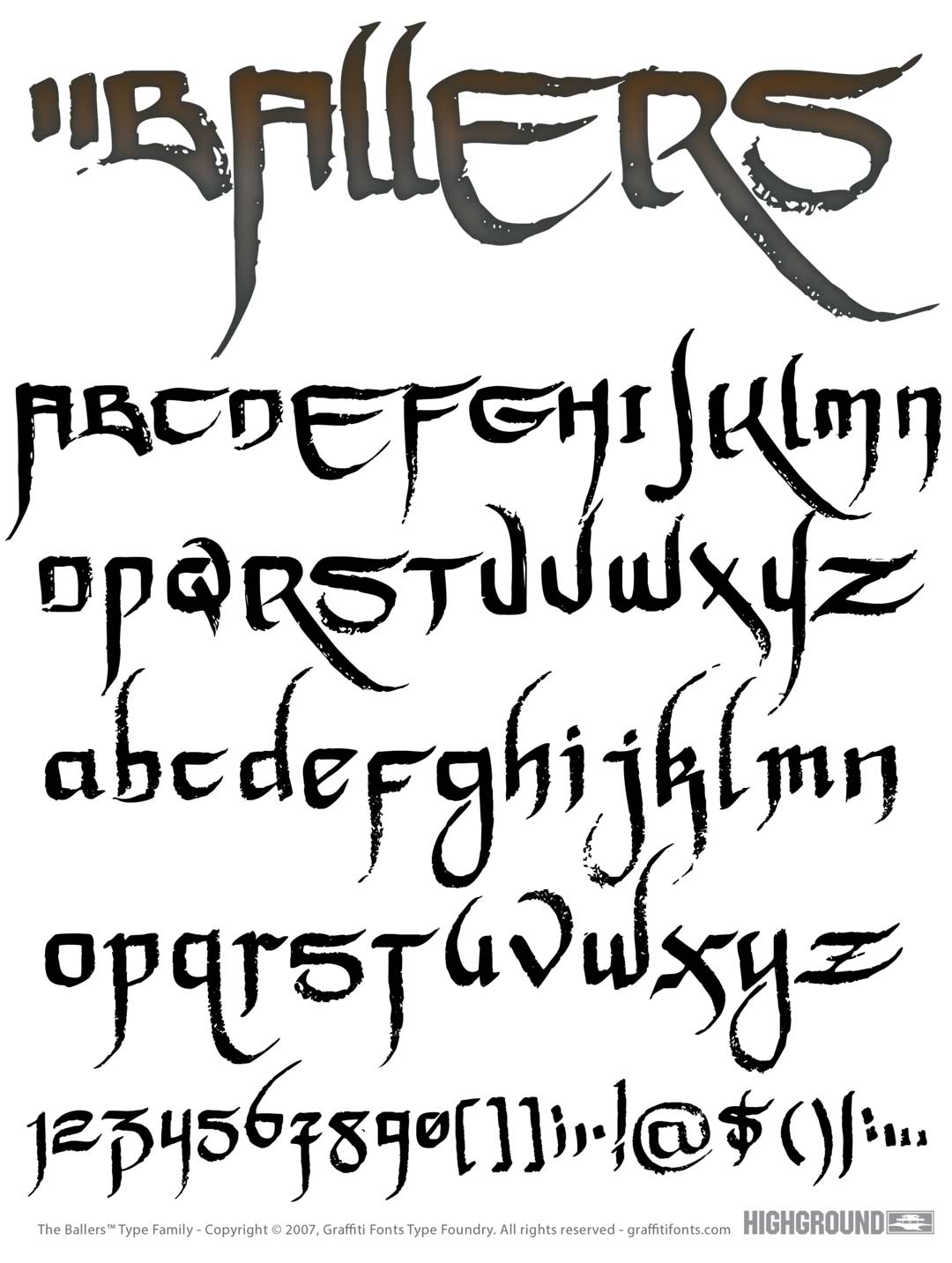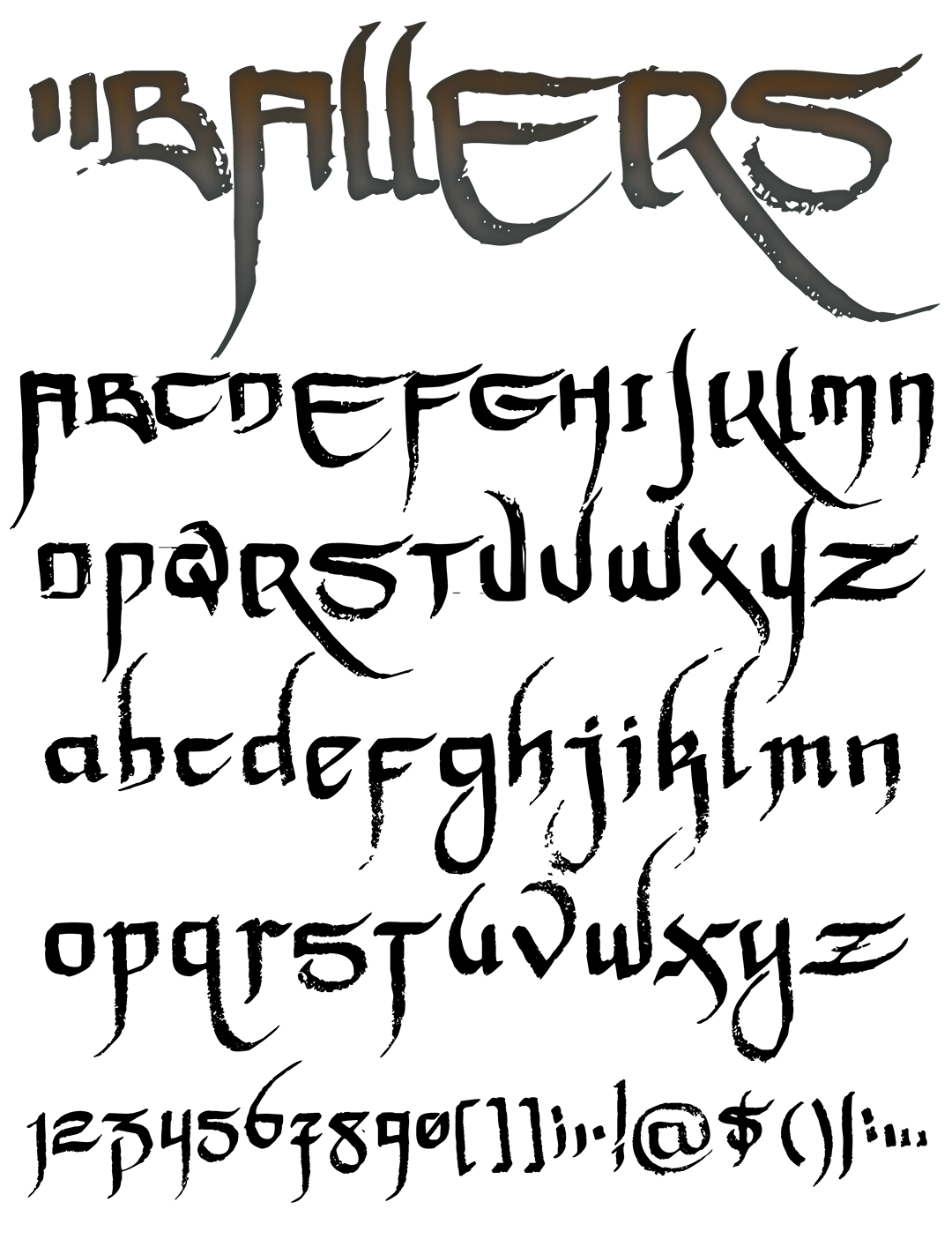
Ballers Font
Ballers Graffiti Alphabet
Ballers Graffiti Font Family
Distressed calligraphic tag lettering in a top aligned, rough brush style. Ballers was created to combine a bit from ancient styles with a bit from modern street styles. 84 hand written characters including uppercase & lowercase letters create a natural & unique style that is easy to read & easy to customize.